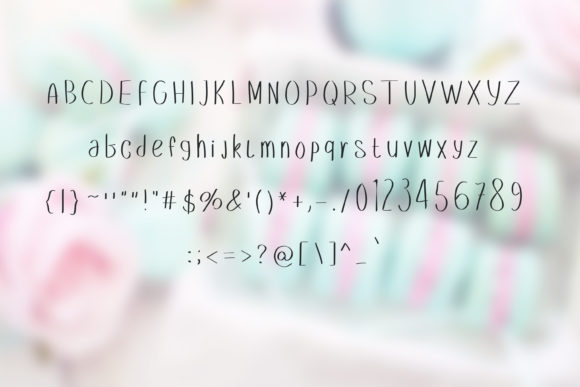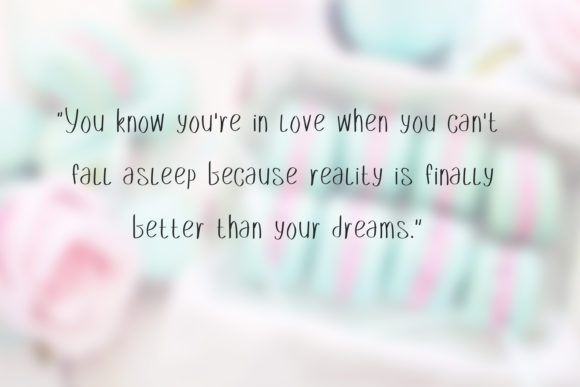
Parabumcy Font
About Parabumcy Font
Parabumcy is a sweet and joyful handwritten font. Embodying fun and playfulness, this font is the perfect match for each of the creative ideas that you wish to brighten up!